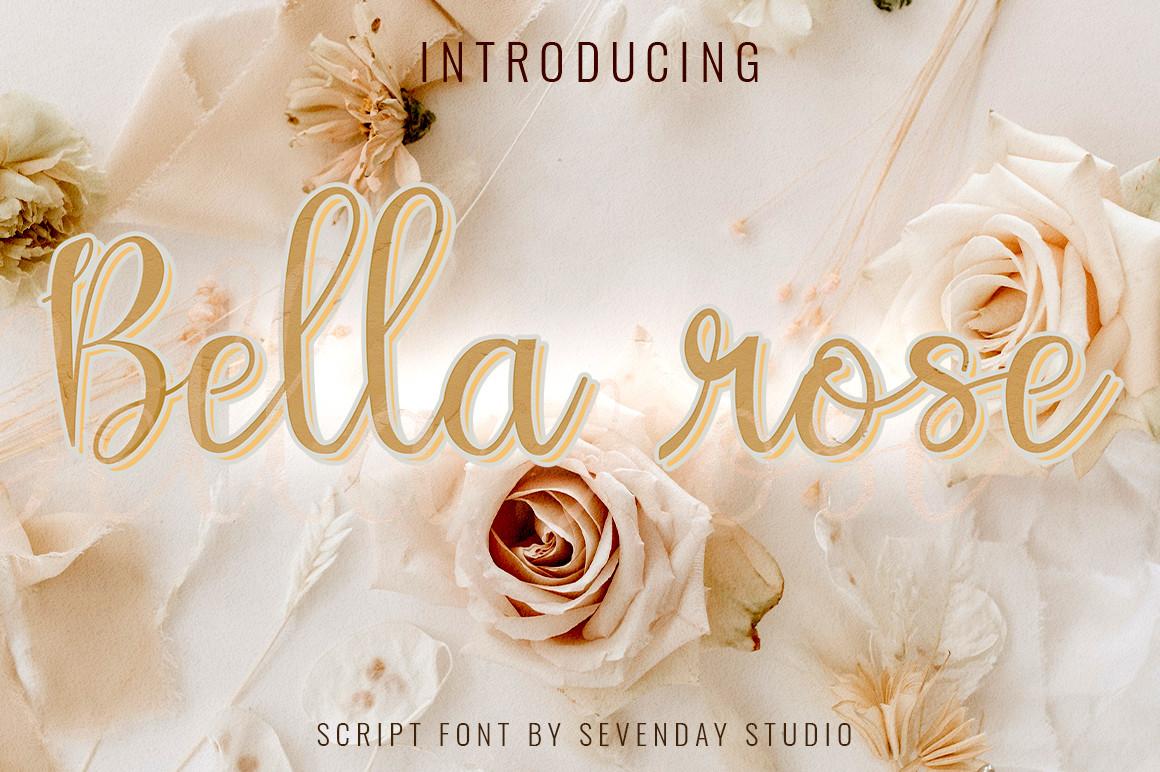
Bella Rose Font Description
Bella Rose is a delicate script font made for invitation cards, flyers or event poster that require high-quality items. It has a classy, elegant and modern look that can be used for logos, branding, invitations, stationery, wedding designs, social media posts, and much more!